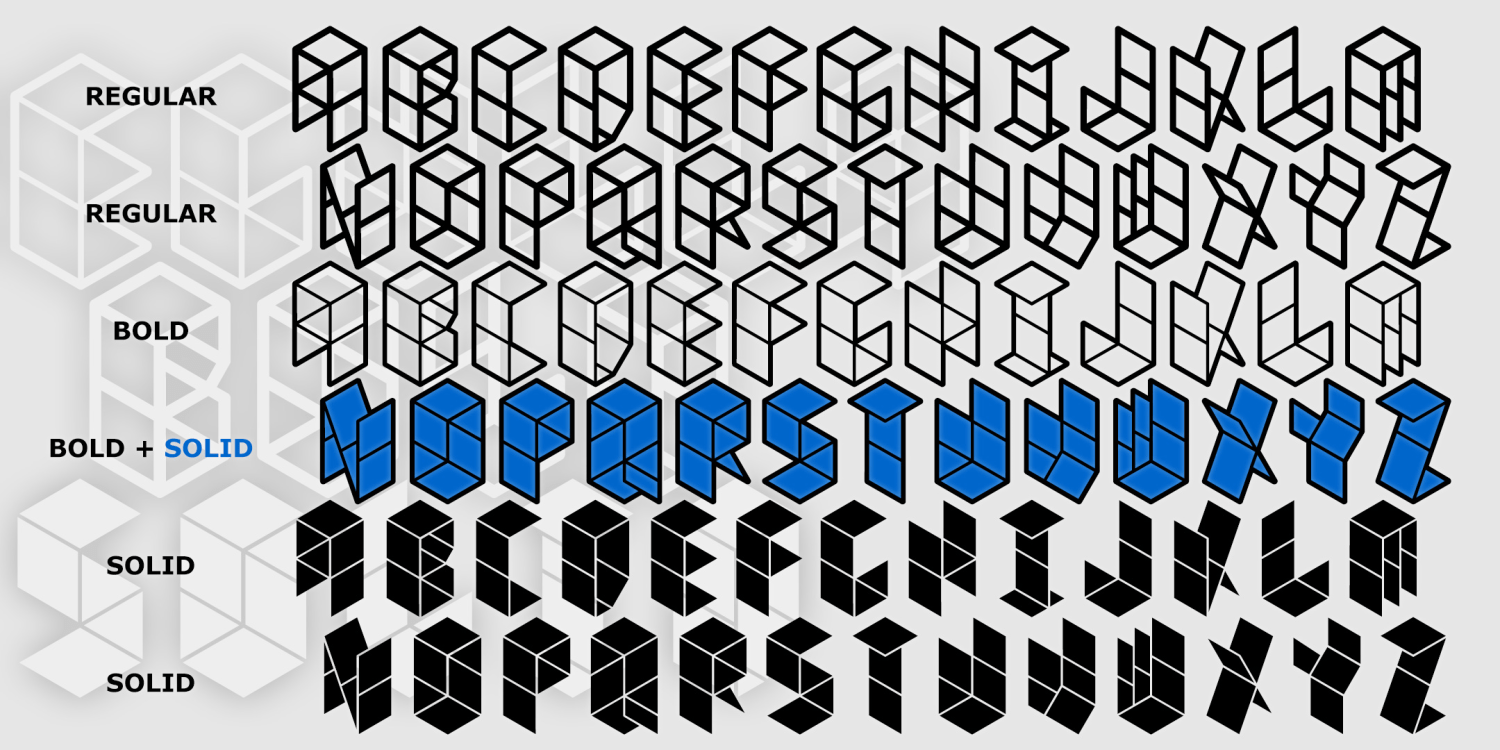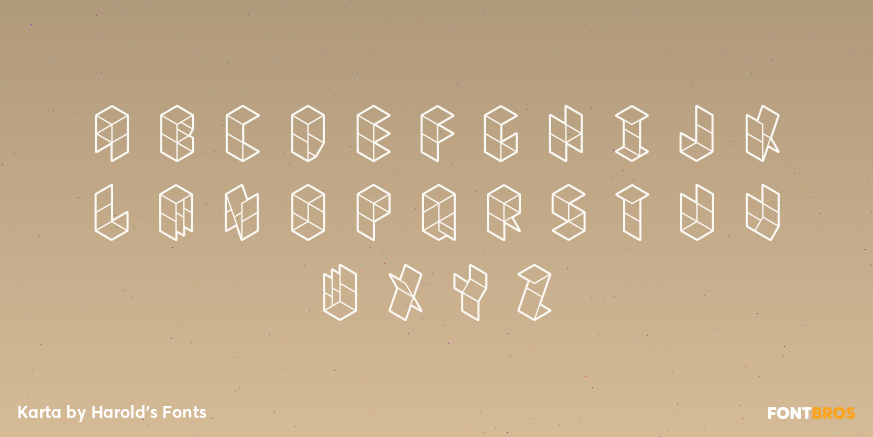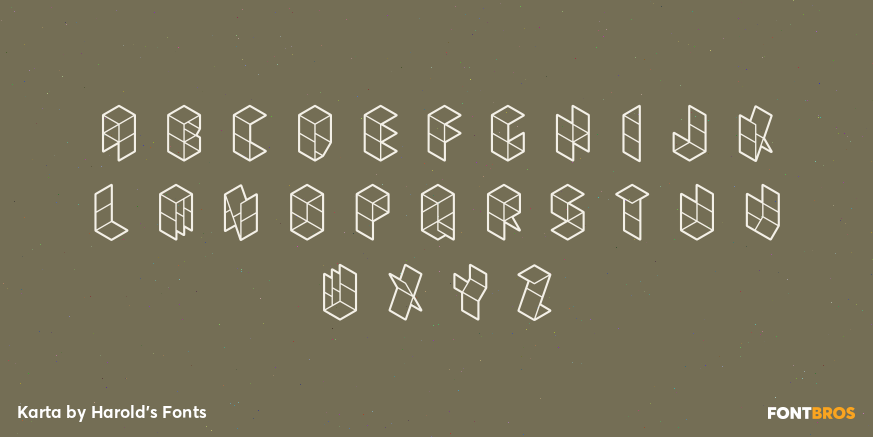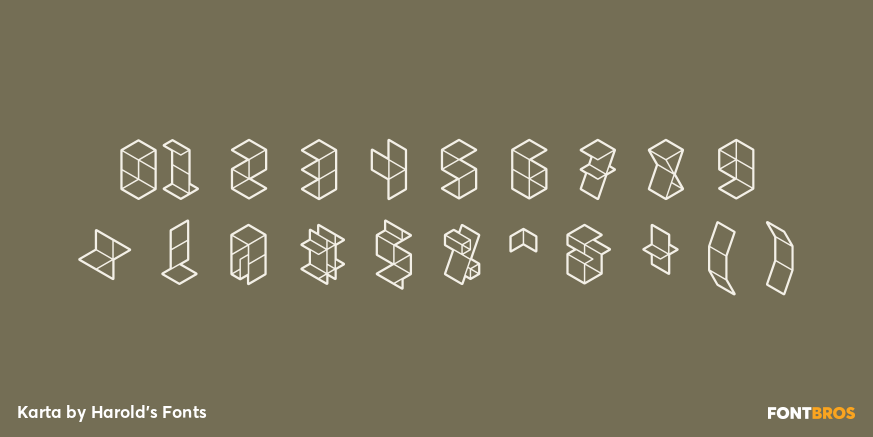
Karta
Font Family by Harold's Fonts
Buy NowKARTA has the feeling of origami letters or of a house of cards. It was inspired by a 2-letter paper company logo. Three fonts, the Solid version can be used separately or, better yet, with the Regular or Bold outlines overlapping it in another color.